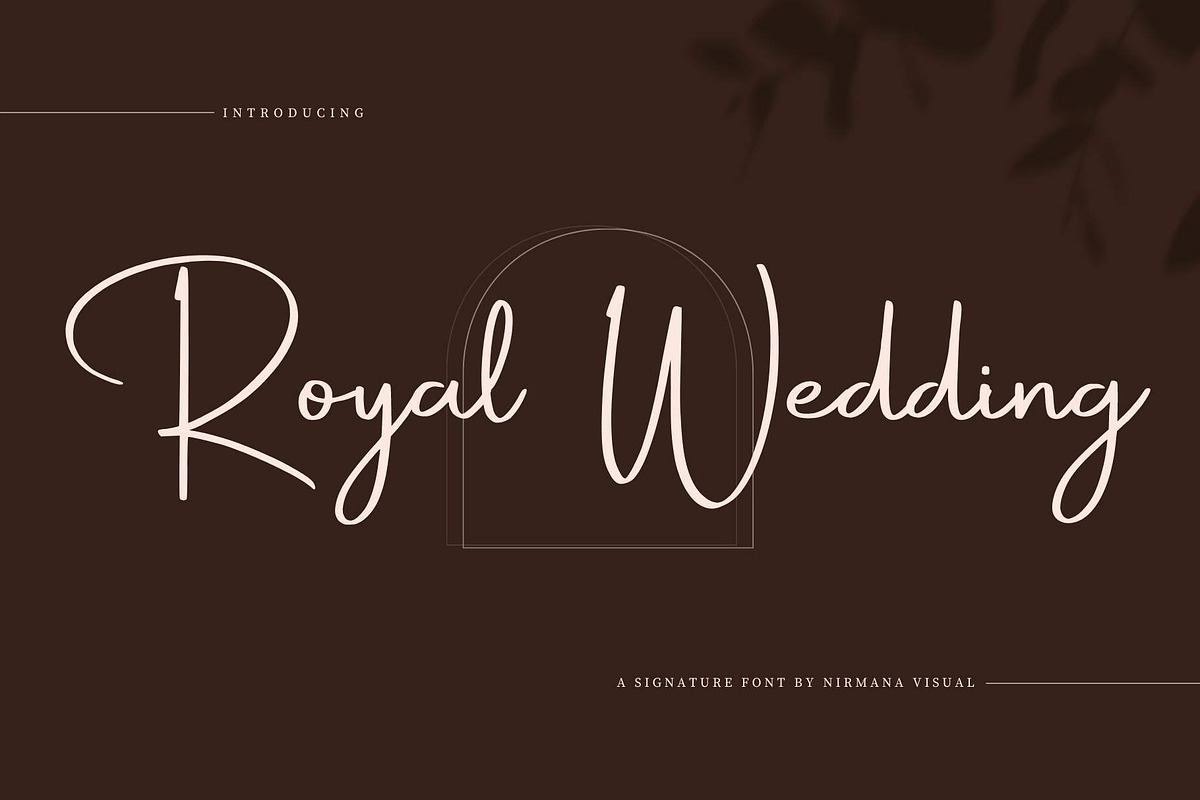
Royal Wedding - Script Font Free Download
Royal Wedding Script Font Free Download
Royal Wedding Script Font Free Download is an elegant and refined handwritten script typeface, designed to bring sophistication and beauty to your designs. With its graceful curves, intricate strokes, and timeless appeal, this font is perfect for wedding invitations, elegant event branding, greeting cards, logos, and more.
Its luxurious and flowing style makes it ideal for high-end projects, adding a personal, romantic touch to your typography. Whether you're designing for a wedding, luxury brand, or creating chic stationery, Royal Wedding Script Font Free Download elevates your design with class and elegance.